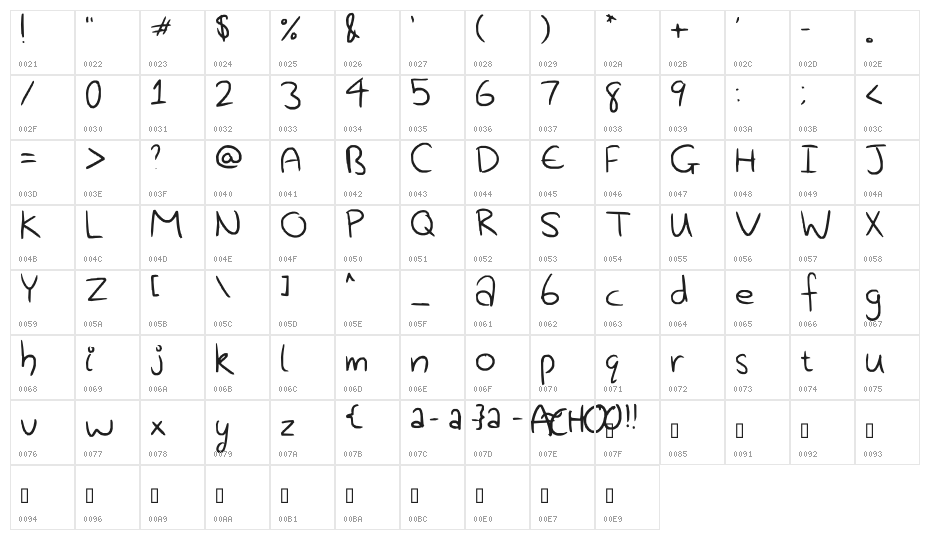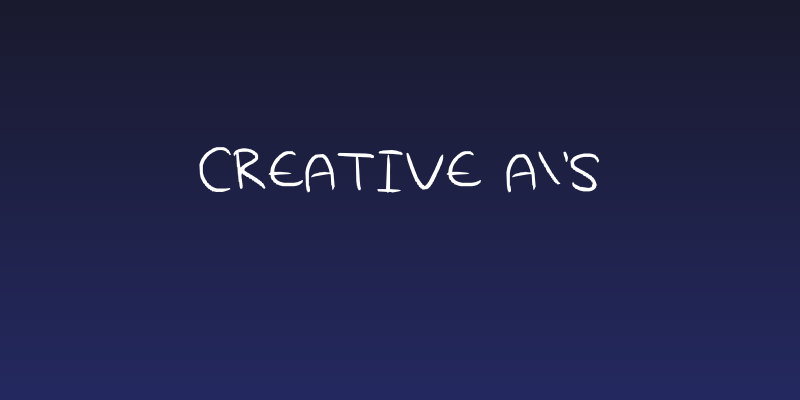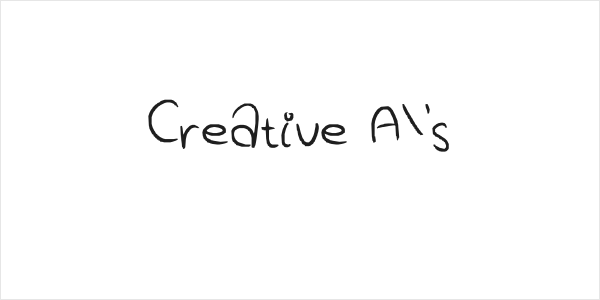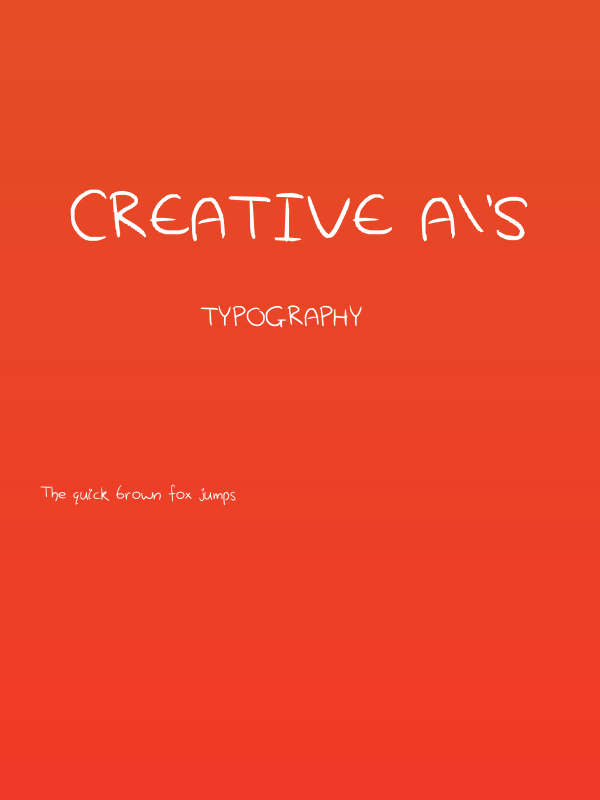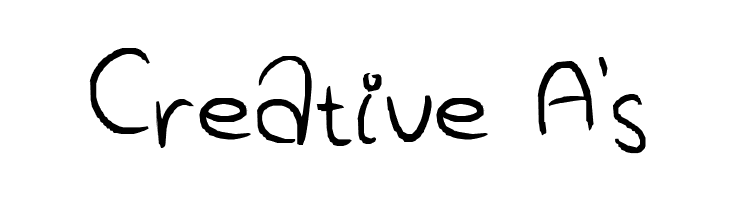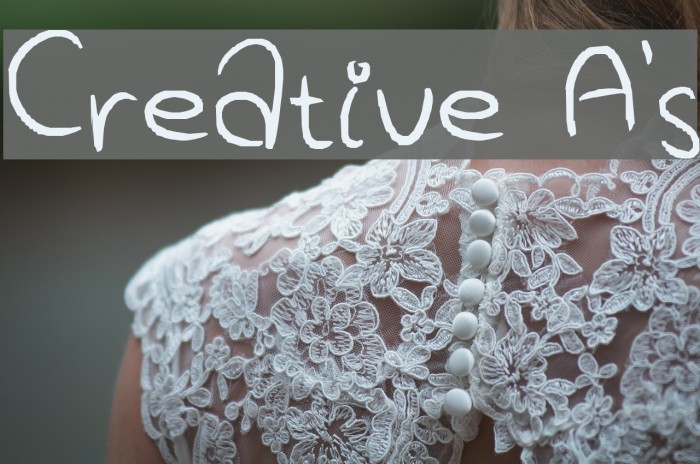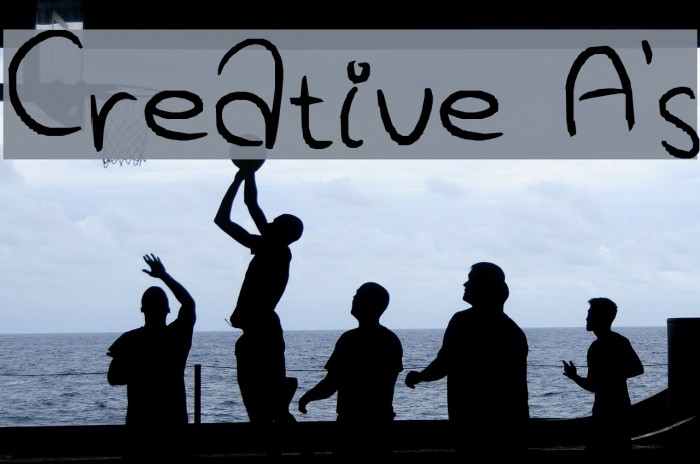
Creative A's Font
| 全体的なスタイル | Casual, Playful |
| 用途 | Headlines, Informal text, Creative projects |
| おすすめプロジェクト | Ideal for children's books, greeting cards, casual invitations, and creative branding projects. |